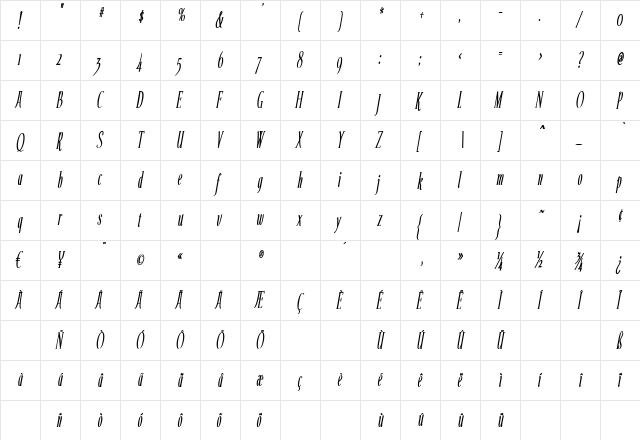
Echelon Condensed Italic Font Preview
Design Context for Echelon Condensed Typeface
Echelon Condensed takes a measured approach to typography — its balanced proportions and neutral character make it a reliable workhorse for both digital and print work. Its italic angle brings a sense of urgency and motion to the letterforms. The condensed width makes it efficient for tight spaces without sacrificing legibility.